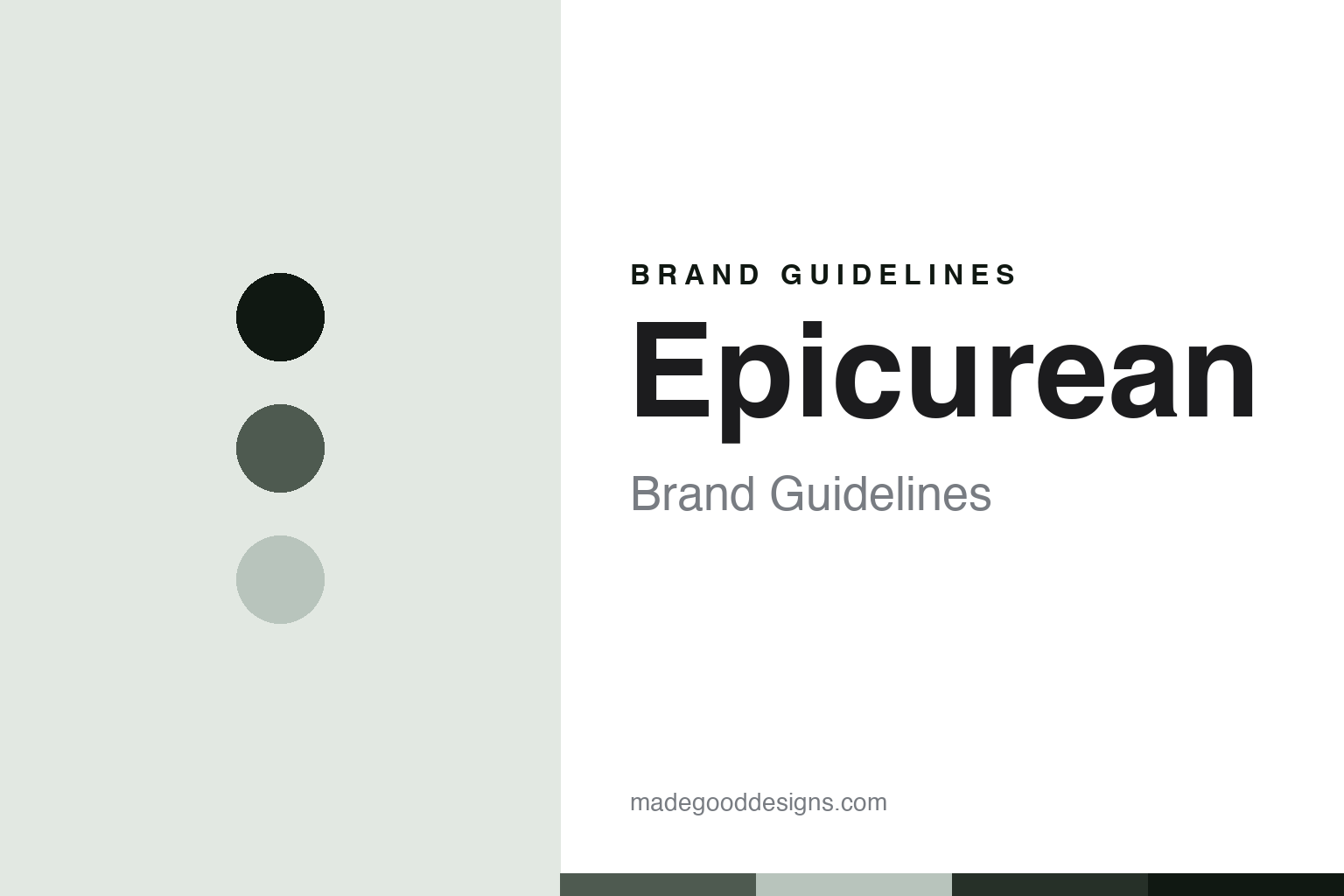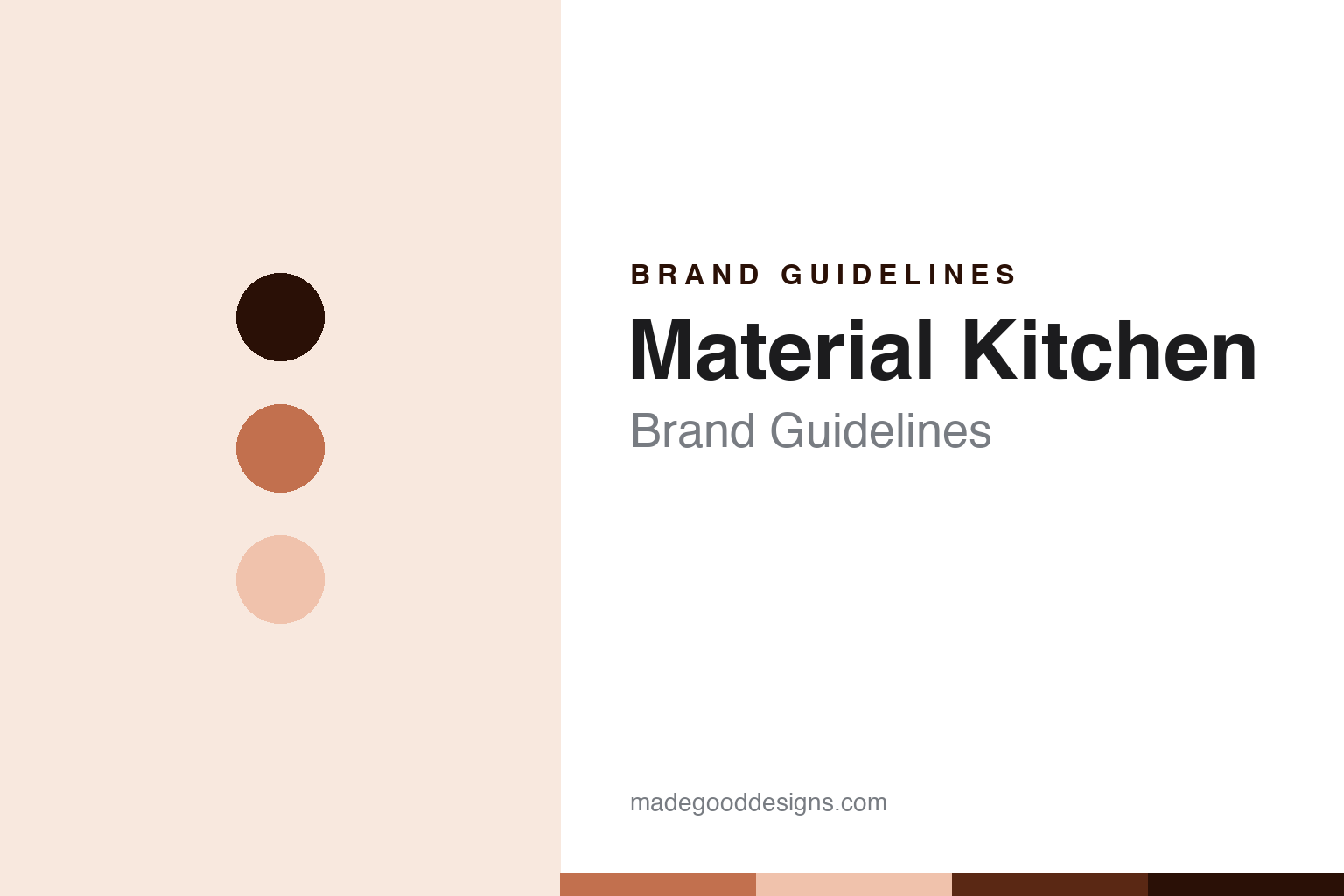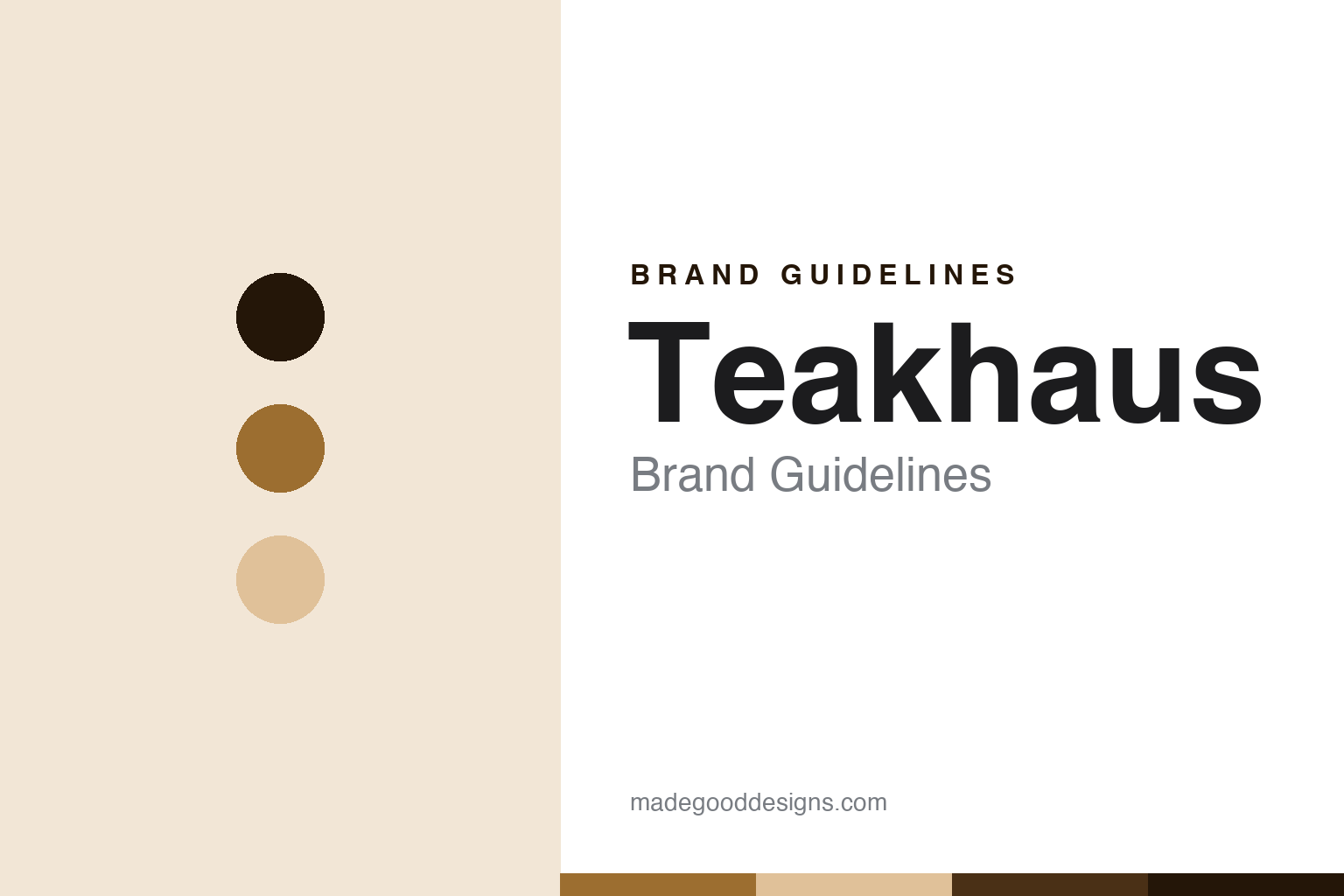
What is Helvetica? Helvetica is a neo-grotesque sans-serif typeface designed in 1957 by Max Miedinger with Eduard Hoffmann at the Haas Type Foundry in Münchenstein, Switzerland. It was released as Neue Haas Grotesk and renamed Helvetica, after Helvetia, the Latin name for Switzerland, in 1960. Monotype owns it today. It comes pre-installed on Macs and iPhones, but using it elsewhere requires a commercial licence.
The Helvetica font is, without exaggeration, the most recognized and widely used typeface in the history of graphic design. From the New York City subway system to American Airlines boarding passes, from Jeep logos to Crate & Barrel storefronts, Helvetica is so deeply embedded in our visual landscape that most people encounter it dozens of times a day without ever noticing. Born in 1957 in a small Swiss type foundry, this neo-grotesque sans-serif has spent nearly seven decades at the center of design culture — celebrated by modernists, criticized by postmodernists, and used by virtually everyone in between.
But what makes Helvetica so enduring? Why does a typeface designed in the late 1950s still dominate corporate branding, government signage, and digital interfaces in the 2020s? And is its ubiquity a testament to great design, or a symptom of creative laziness? This guide covers everything you need to know about Helvetica — its history, its design DNA, its many versions, its best pairings, and the ongoing debate about whether the world’s most famous typeface is also its most overused.
Quick Facts About the Helvetica Font
- Designer: Max Miedinger, with Eduard Hoffmann
- Year Released: 1957 (as Neue Haas Grotesk); renamed Helvetica in 1960
- Classification: Neo-grotesque sans-serif
- Foundry: Originally Haas Type Foundry; now Monotype
- Key Versions: Helvetica (1957), Helvetica Neue (1983), Neue Haas Grotesk (2010 revival)
- Weights: Varies by version; Helvetica Neue offers 51 fonts across multiple weights and widths
- Best For: Corporate identity, signage, editorial design, user interfaces
The History of the Helvetica Font: From Swiss Workshop to Global Icon
The Birth of Neue Haas Grotesk (1957)
In the mid-1950s, Eduard Hoffmann, the director of the Haas Type Foundry in Munchenstein, Switzerland, recognized that the foundry needed a modern sans-serif to compete with the increasingly popular Akzidenz-Grotesk from the rival Berthold foundry. He commissioned Max Miedinger, a former Haas employee who had become a freelance designer, to create a new typeface that would modernize the sans-serif genre while remaining commercially viable.
Miedinger and Hoffmann worked closely together through 1956 and into 1957, refining the design that would initially be called Neue Haas Grotesk. The name was straightforward — it was simply the “new grotesque” from the Haas foundry. It debuted in 1957 and was an immediate success within the Swiss market, perfectly aligned with the International Typographic Style (Swiss Style) movement that was gaining momentum in Basel and Zurich.
The Name Change: Why “Helvetica”?
The Haas Type Foundry was a subsidiary of the larger Stempel foundry in Frankfurt, Germany, which was in turn closely linked to the Linotype company. When Stempel began marketing the typeface internationally in 1960, the name Neue Haas Grotesk was deemed too parochial — it referenced a small Swiss foundry that few outside the industry had heard of, and “Grotesk” carried awkward connotations in English.
Stempel’s marketing director proposed renaming it “Helvetia,” the Latin name for Switzerland. Hoffmann objected — you couldn’t name a typeface after a country, he felt. The compromise was “Helvetica,” the adjectival form, meaning roughly “Swiss” in Latin. It was a masterstroke of branding. The name evoked Swiss precision, neutrality, and quality without being too literal. By the time Linotype began distributing Helvetica for its typesetting machines in the early 1960s, the typeface had a name as clean and universally appealing as its letterforms.
The Ownership Journey: Haas to Stempel to Linotype to Monotype
Understanding who “owns” Helvetica requires following a chain of acquisitions that spans half a century. The Haas Type Foundry was absorbed by Stempel in 1989. Stempel was already majority-owned by Linotype, which itself went through various corporate changes. In 2006, Monotype Imaging acquired Linotype, bringing Helvetica under the Monotype umbrella — where it remains today. This means that Monotype, the world’s largest type company, controls the licensing for the world’s most famous typeface, a commercially significant combination.
Design Characteristics: What Makes the Helvetica Font Unique
To the untrained eye, Helvetica may look like “just another sans-serif.” But its specific design decisions are what set it apart from predecessors like Akzidenz-Grotesk and imitators like Arial. Understanding these characteristics is essential for any designer who uses the Helvetica font or considers its alternatives.
Neutral, Purposefully Unremarkable Forms
Helvetica was designed to be a vessel for content, not a statement in itself. Its letterforms avoid the quirky personality of humanist sans-serifs (like Gill Sans or Frutiger) and the rigid geometry of geometric sans-serifs (like Futura or Avenir). Instead, Helvetica occupies a middle ground — the neo-grotesque category — where letterforms are based on 19th-century grotesque typefaces but refined to eliminate idiosyncrasies.
What font is closest to Helvetica on Google Fonts?
There is no perfect Helvetica match on Google Fonts, since Helvetica is a licensed typeface. The closest options include Roboto (Google’s own neo-grotesque, which blends Helvetica-like neutrality with more humanist characteristics), Inter (a modern screen-optimized sans-serif with a similar neutral feel), and Nimbus Sans (an open-source metric-compatible alternative to Helvetica). For display use, IBM Plex Sans also offers a clean, neutral aesthetic that can serve similar purposes.